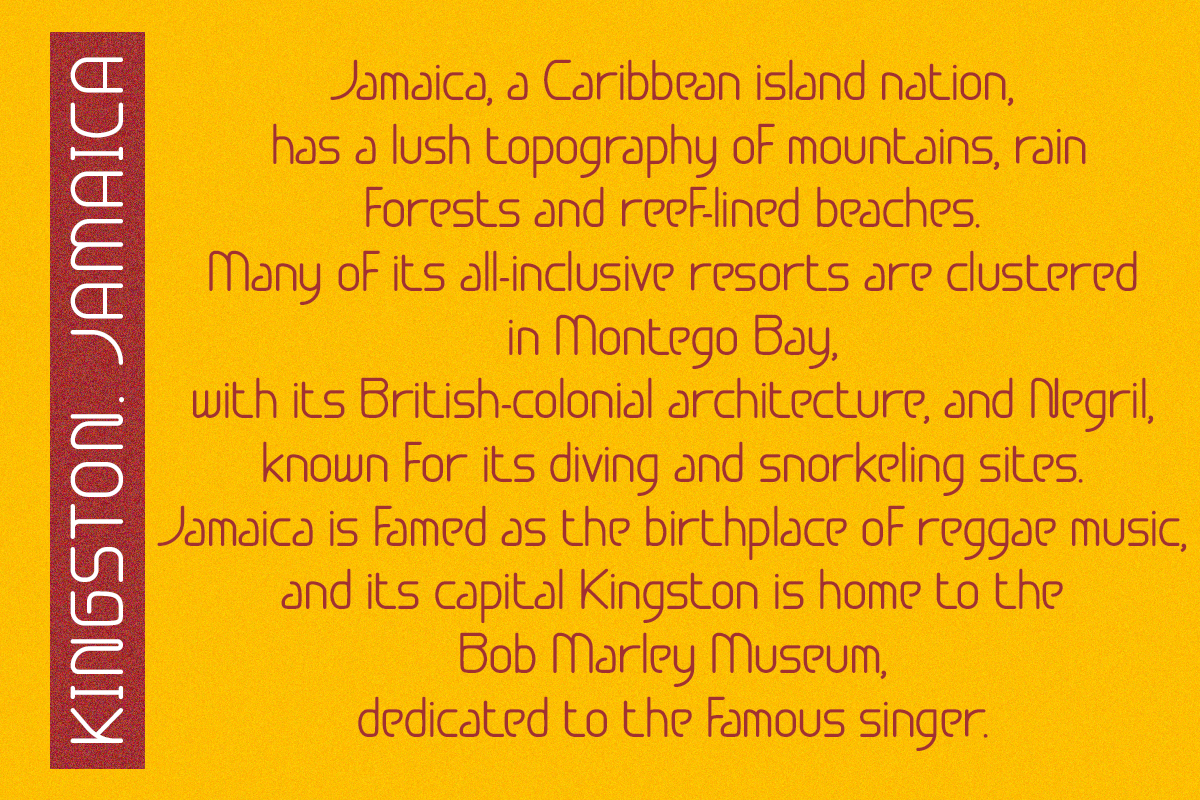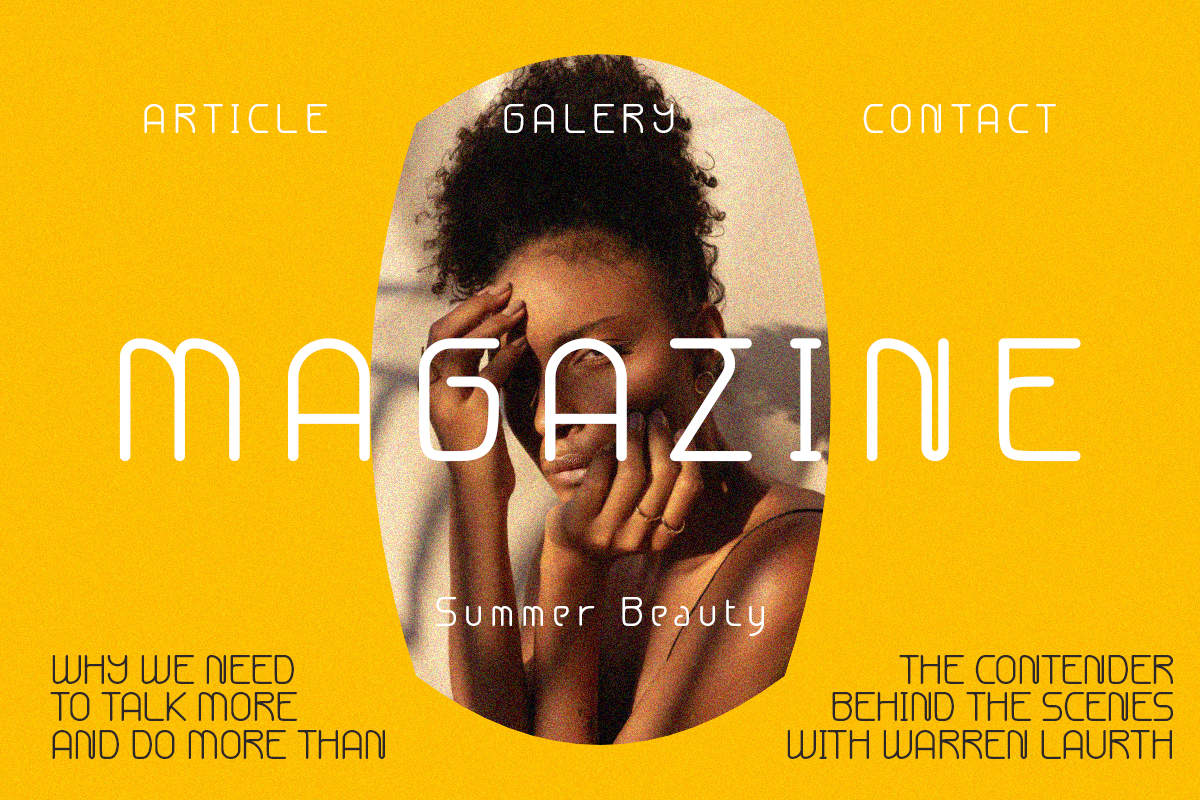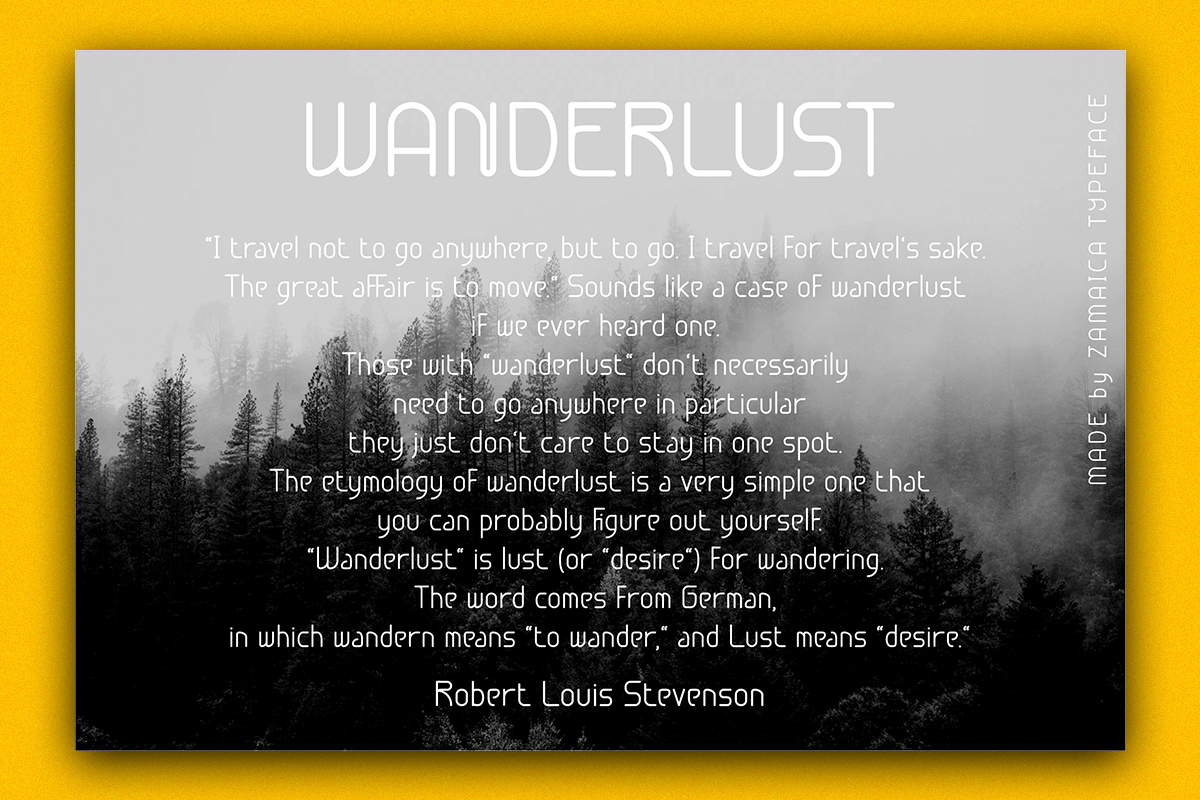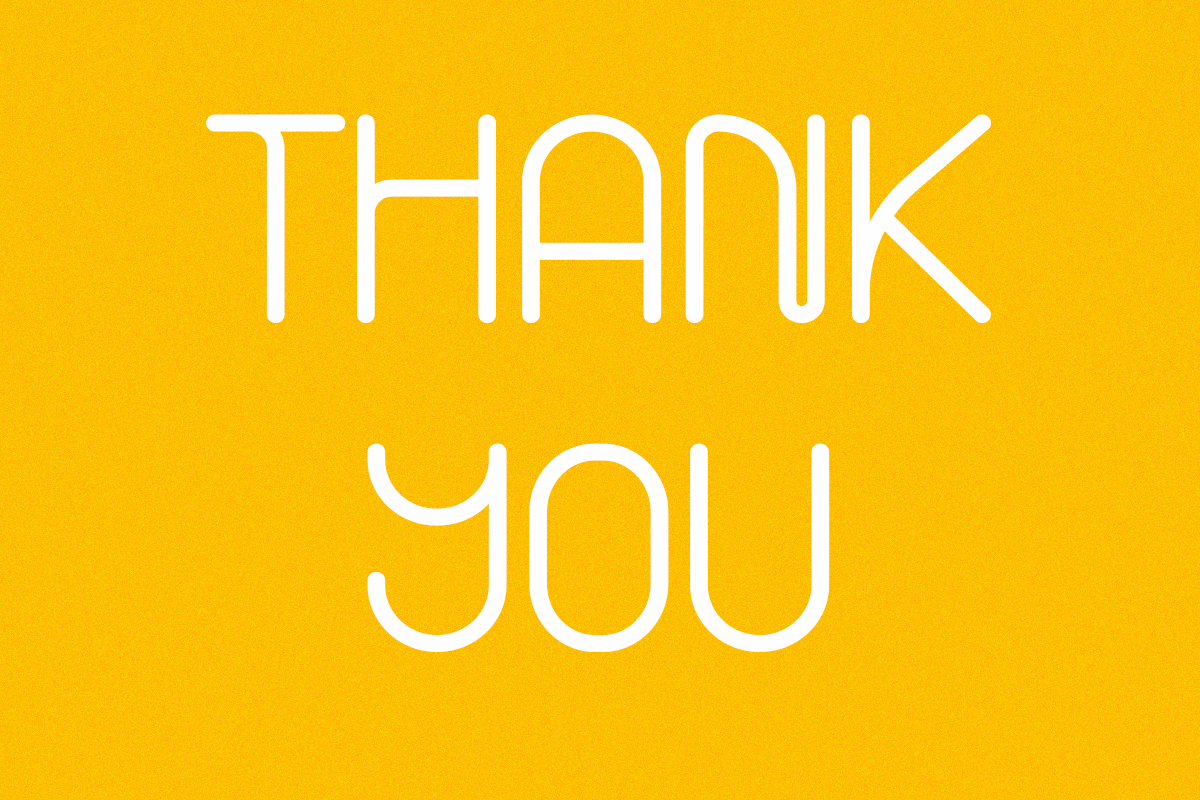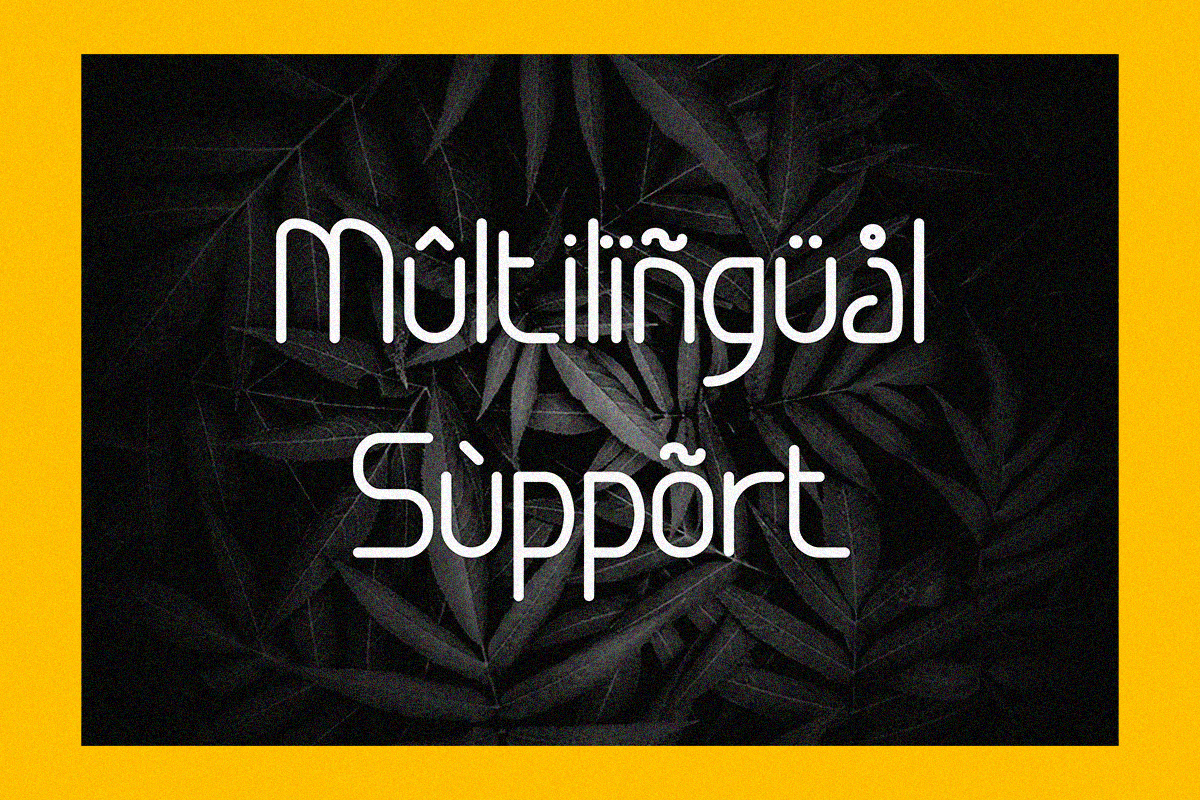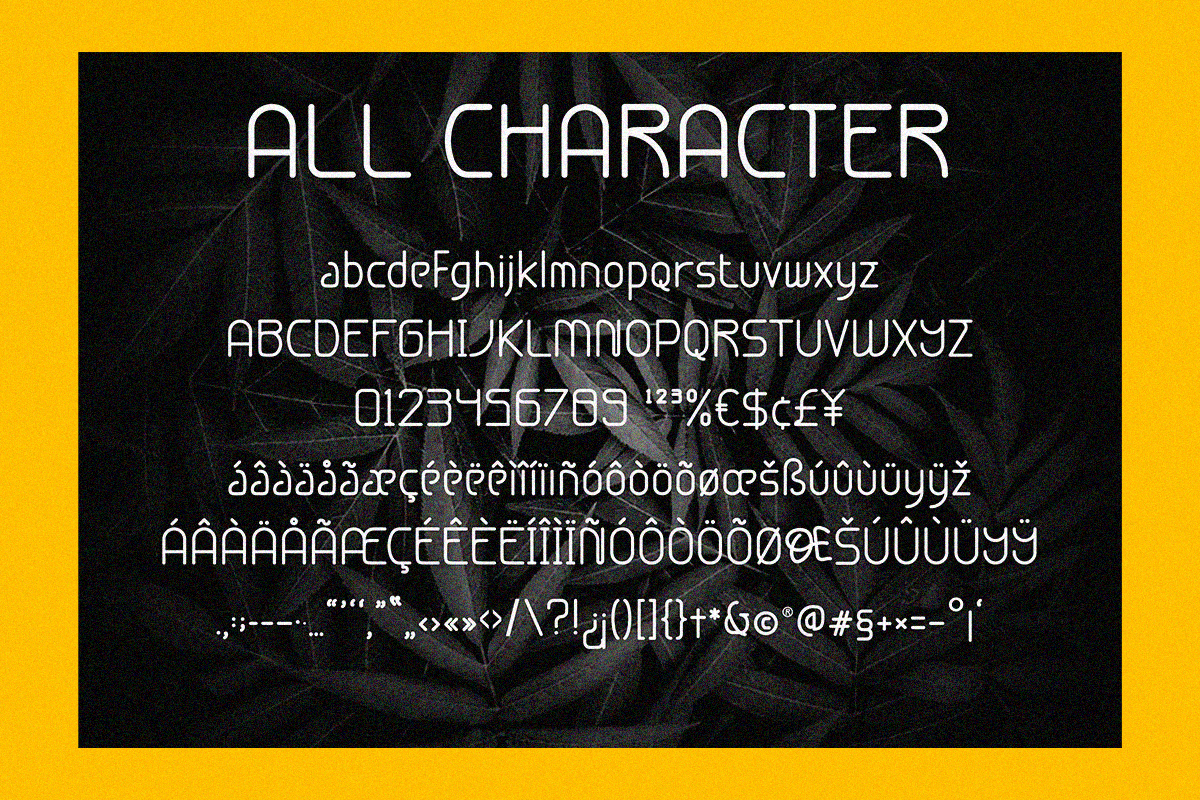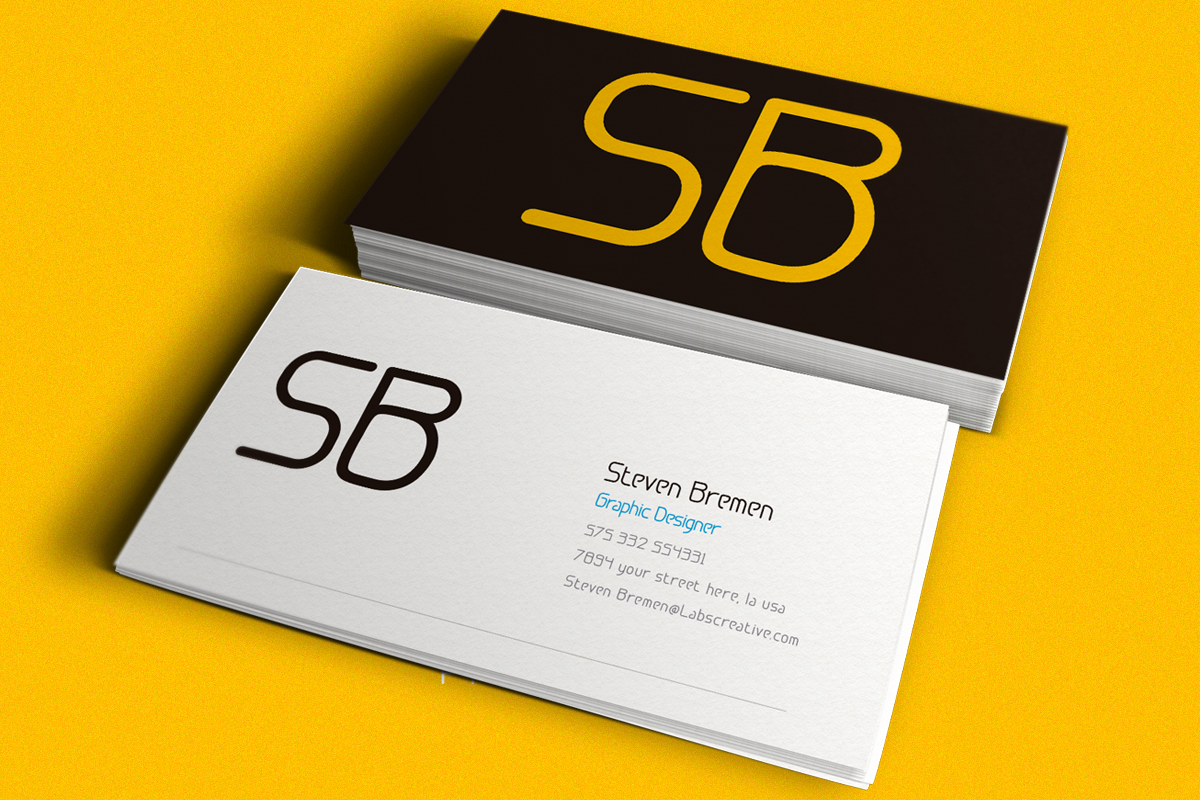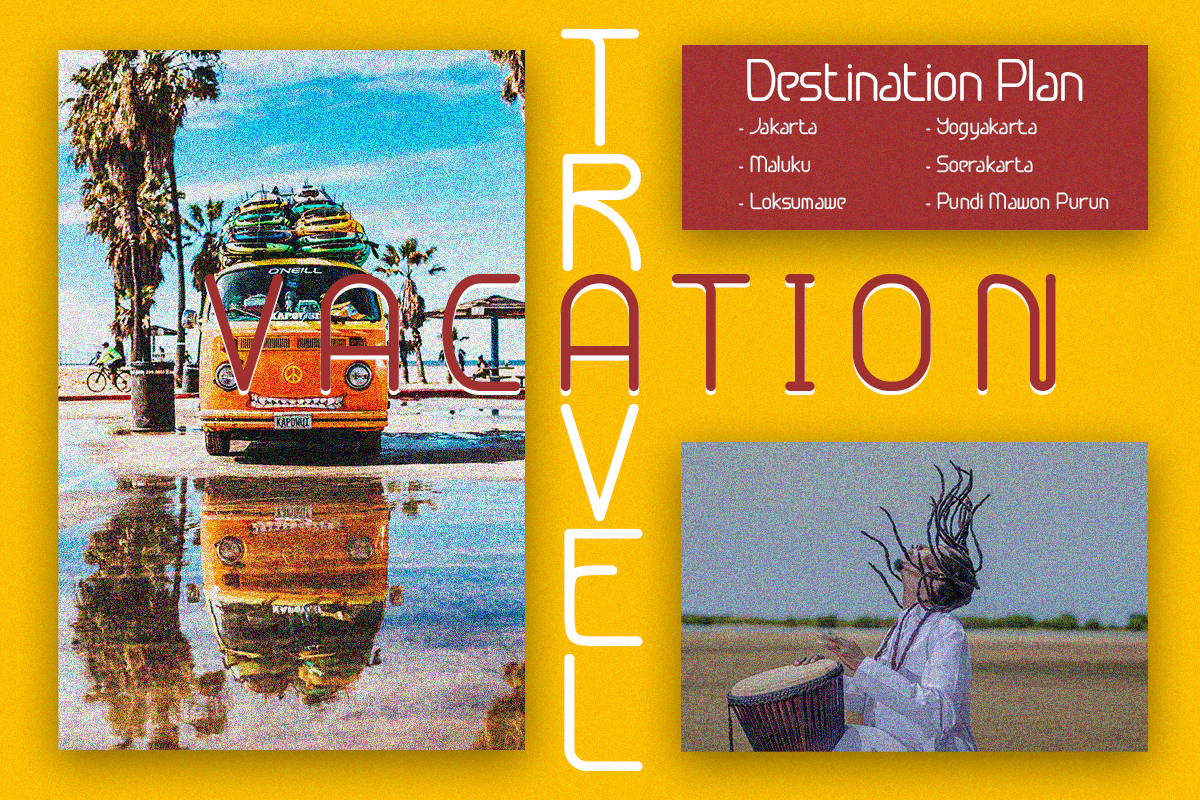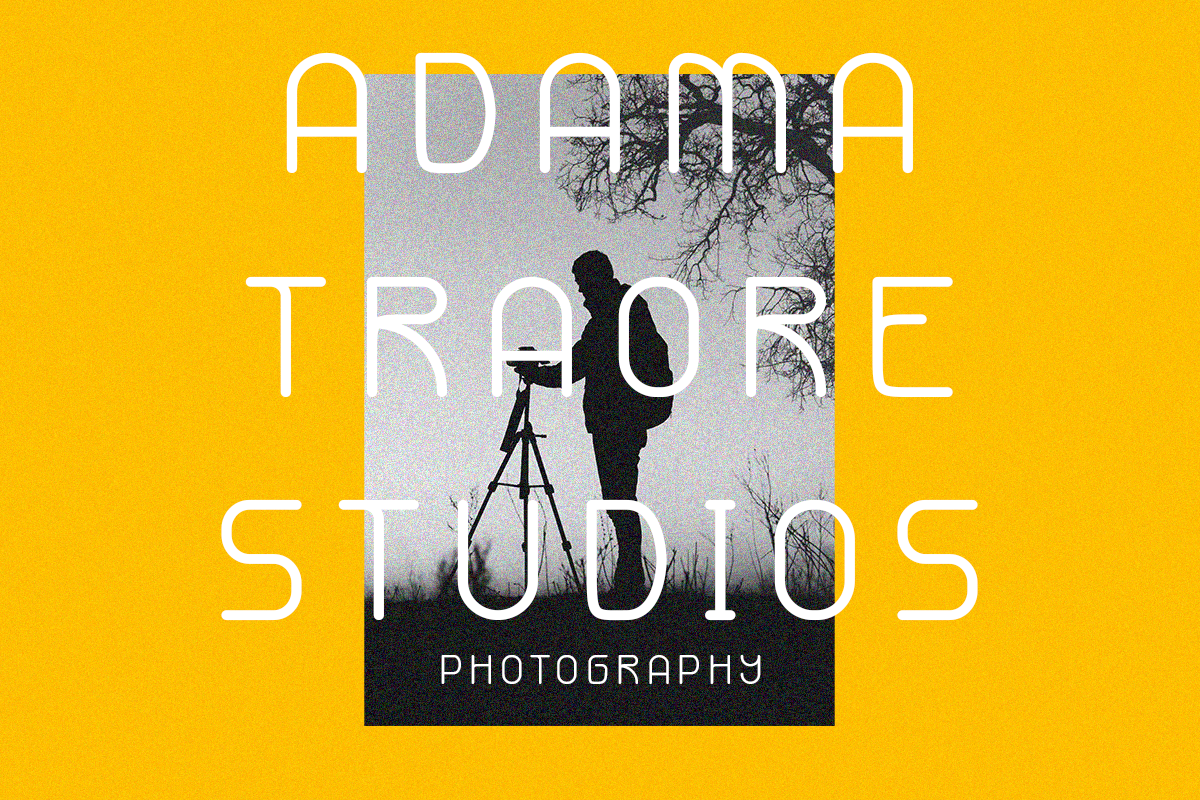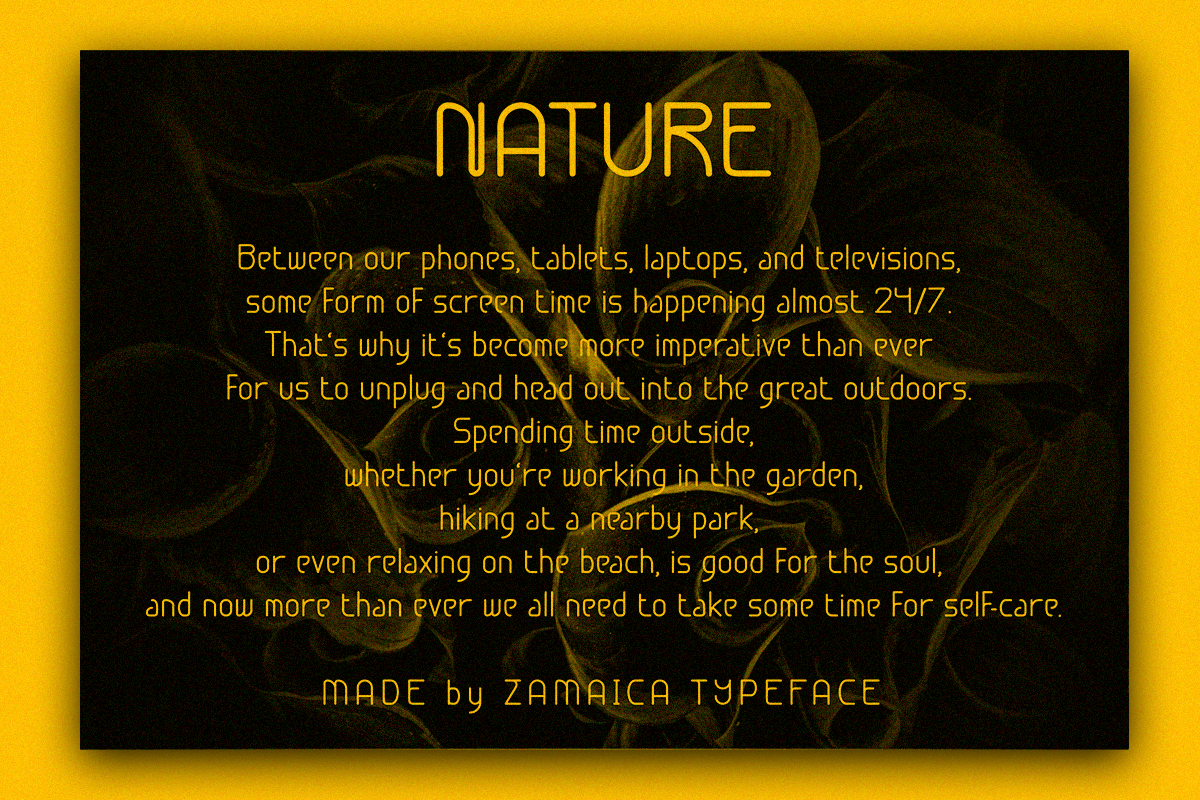
Zamaica
Zamaica is a sans serif monoline font with multilingual support. It is perfectly suited for traditional media and the web – great for the crafter and graphic artists, compatible with all tools. Its playfulness makes it great for creative projects, be it inspirational wall posters or for communicating your brand.